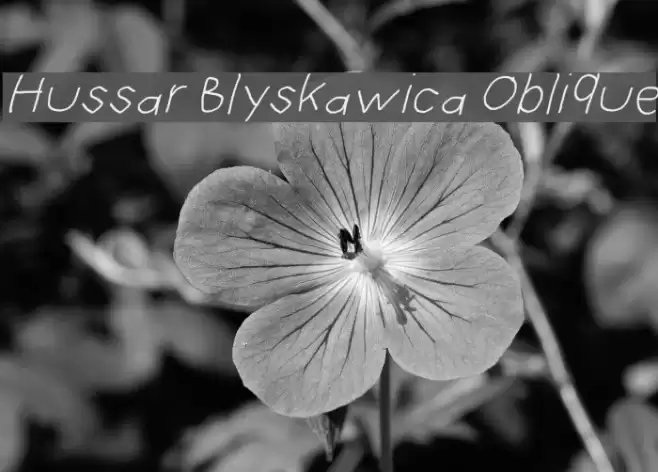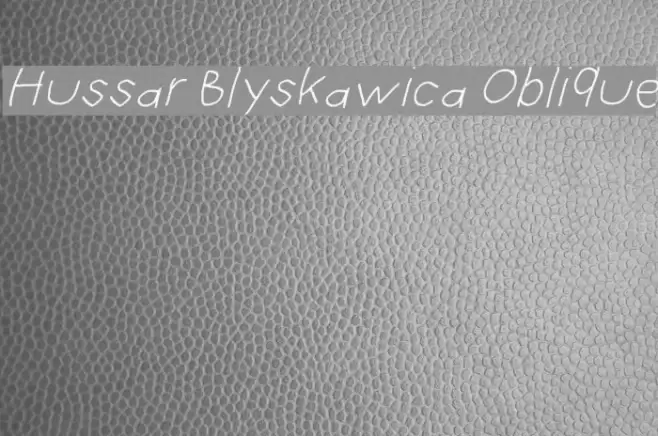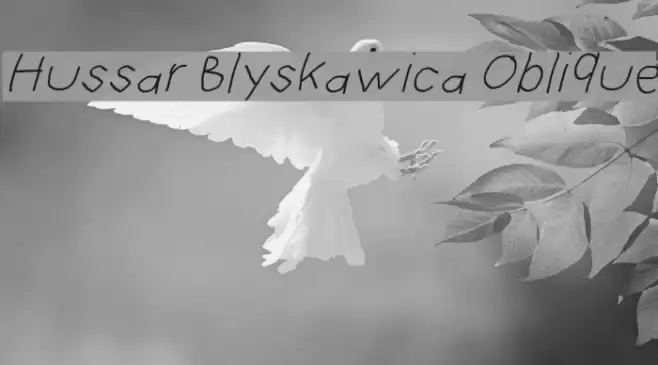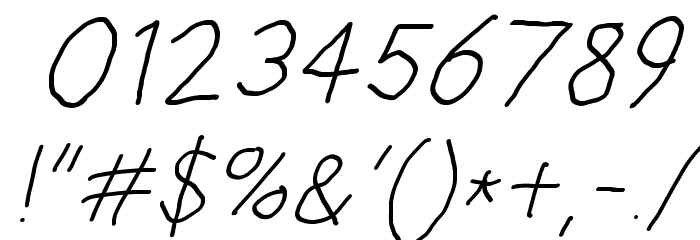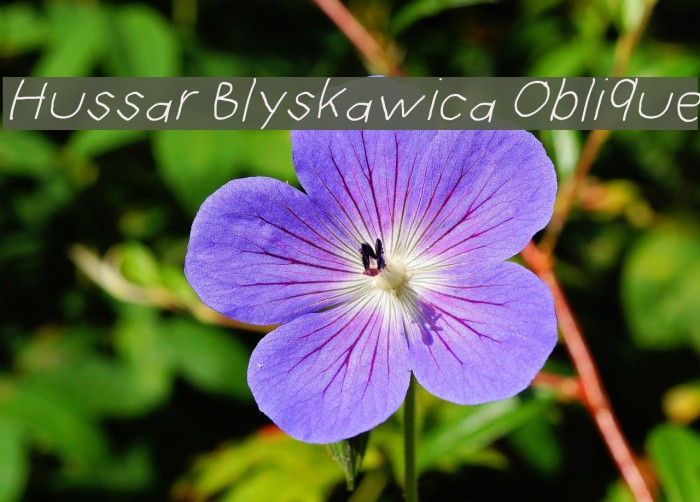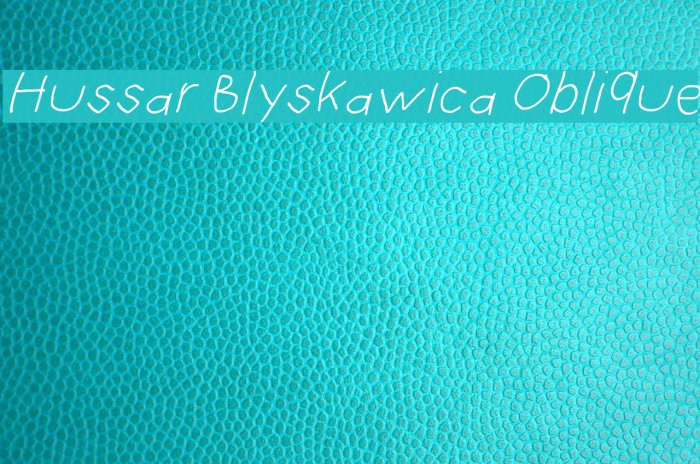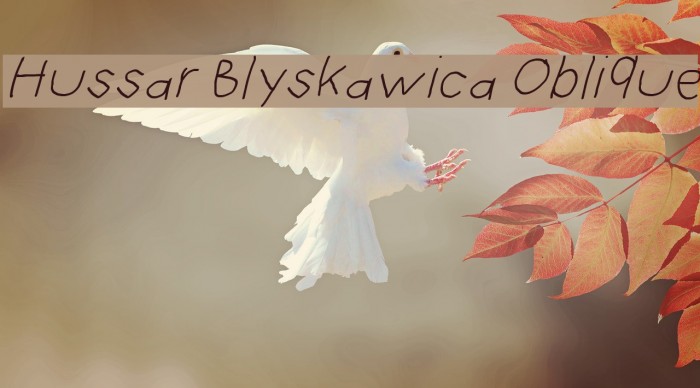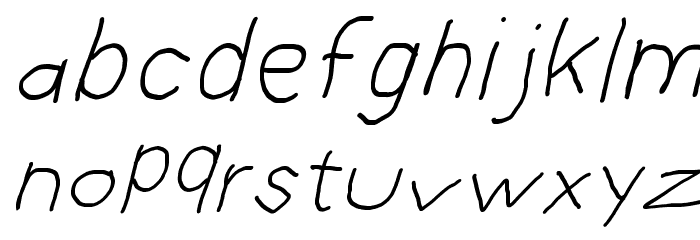
Hussar Blyskawica Oblique Font
Hussar Blyskawica Oblique Description
This font features a dynamic and energetic style with a handwritten, oblique appearance. The letters are slightly slanted, giving a sense of movement and fluidity. The strokes are consistent in width, providing a uniform look across all characters. The uppercase and lowercase letters maintain a casual and informal aesthetic, making it suitable for creative and artistic projects. The numerals and special characters are designed to match the overall style, ensuring coherence throughout the text. The font's playful and lively nature makes it ideal for projects that require a personal touch.
A dynamic, handwritten oblique font with a casual and energetic style from Uncategorized fonts.
- Proposed Projects: Ideal for greeting cards, invitations, personal branding, and artistic projects.
- Overall Style: Casual, Artistic
- Use Case: Headlines, Creative projects, Personal branding